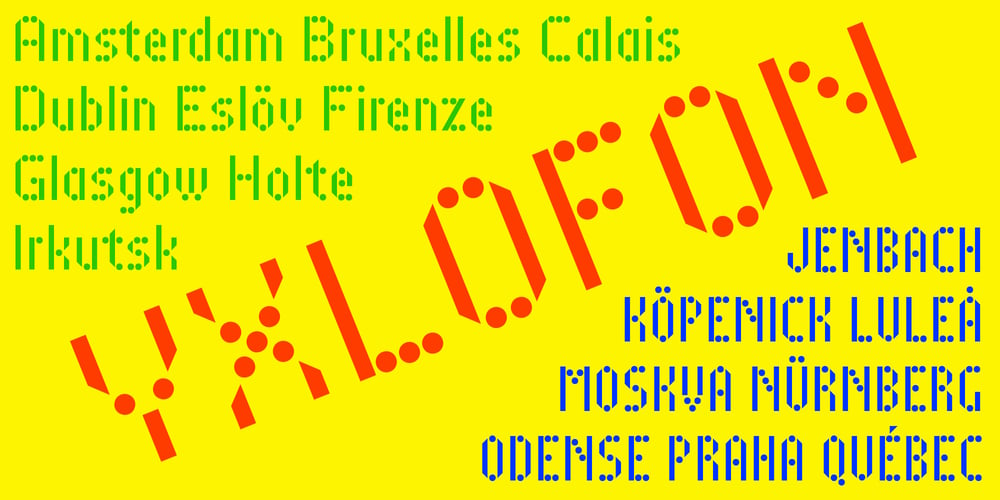
Yxlofon
Yxlofon font
Yxlofon Font Family was designed by Lars Törnqvist and published by Cercurius. Yxlofon contains 3 styles and family package options. Yxlofon is a 21st century display typeface with a flavor of 20th century modernism. It should be used in large sizes on posters, leaflets, book covers, disk covers, etc. It suits anything modern, experimental or futuristic in art, architecture, literature or music.